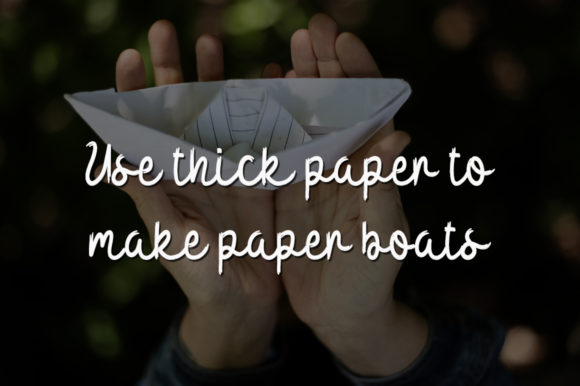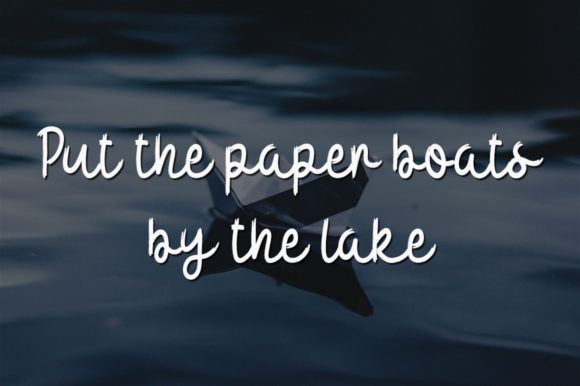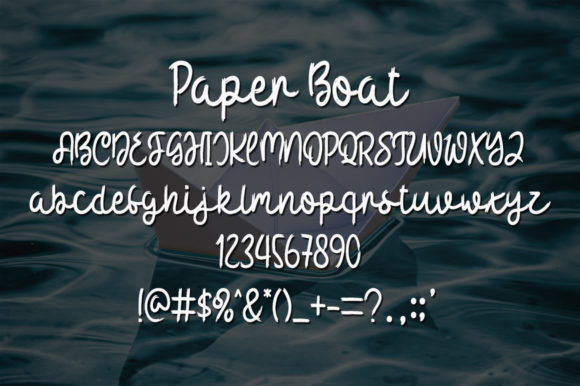
Introduction to Paper Boat Font
As a designer, there’s nothing quite like the thrill of discovering a new font that sparks creativity and elevates your projects to the next level. For me, that moment came when I stumbled upon the Paper Boat Font. Its delicate, elegant curves and rounded edges are like a breath of fresh air, inviting me to create something truly special. Whether I’m working on a branding project or a wedding invitation, this font always seems to bring a touch of whimsy and sophistication to my designs.
What sets the Paper Boat Font apart is its incredible versatility. With its high-quality design and transparent background, it’s perfect for a wide range of creative projects, from digital art to print materials. As a valuable design resource, this font is a must-have for any designer looking to add a touch of elegance to their work.
Key Features of Paper Boat Font
- Unique, hand-drawn style with subtle imperfections, adding a touch of character to any design.
- Perfect for use in digital design, including web design, graphic design, and UI/UX design.
Honest Review: Paper Boat Font
One of the standout features of the Paper Boat Font is its ability to work seamlessly with transparent backgrounds. This allows for a more fluid and modern design approach, which is always a plus in my book.
- ✨ High-quality design aesthetic
- ✨ Works well with transparent backgrounds
- ⚠️ Limited character set, which may not be ideal for projects requiring extensive typography
- ⚠️ May not be suitable for use in certain design software due to its unique characteristics
Overall, I’m impressed with the Paper Boat Font and I think it’s a great addition to any design library. With its modern aesthetic and seamless integration with transparent backgrounds, it’s a must-have for any designer working on creative projects.
Common Use Cases for Paper Boat Font
The Paper Boat Font is ideal for wedding invitations, birthday cards, and other creative projects that require a unique and elegant look. You can also use the font for presentations, documents, and social media posts that need a touch of sophistication.